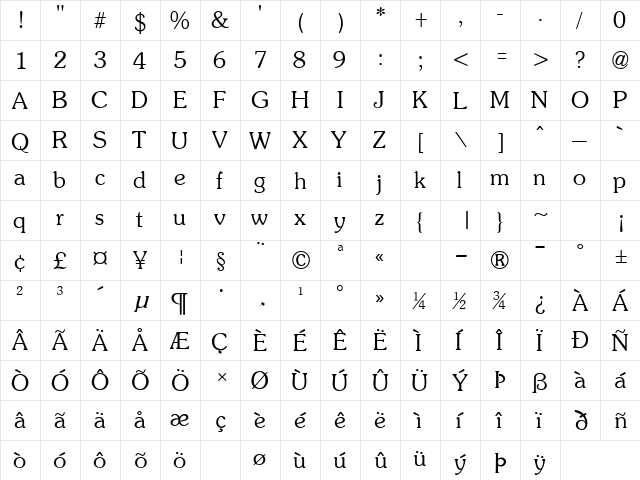
GE Sultan Regular
Design Context for GE Sultan Typeface
GE Sultan offers clean, dependable letterforms without strong stylistic allegiance, making it a practical choice for designers who need flexibility.